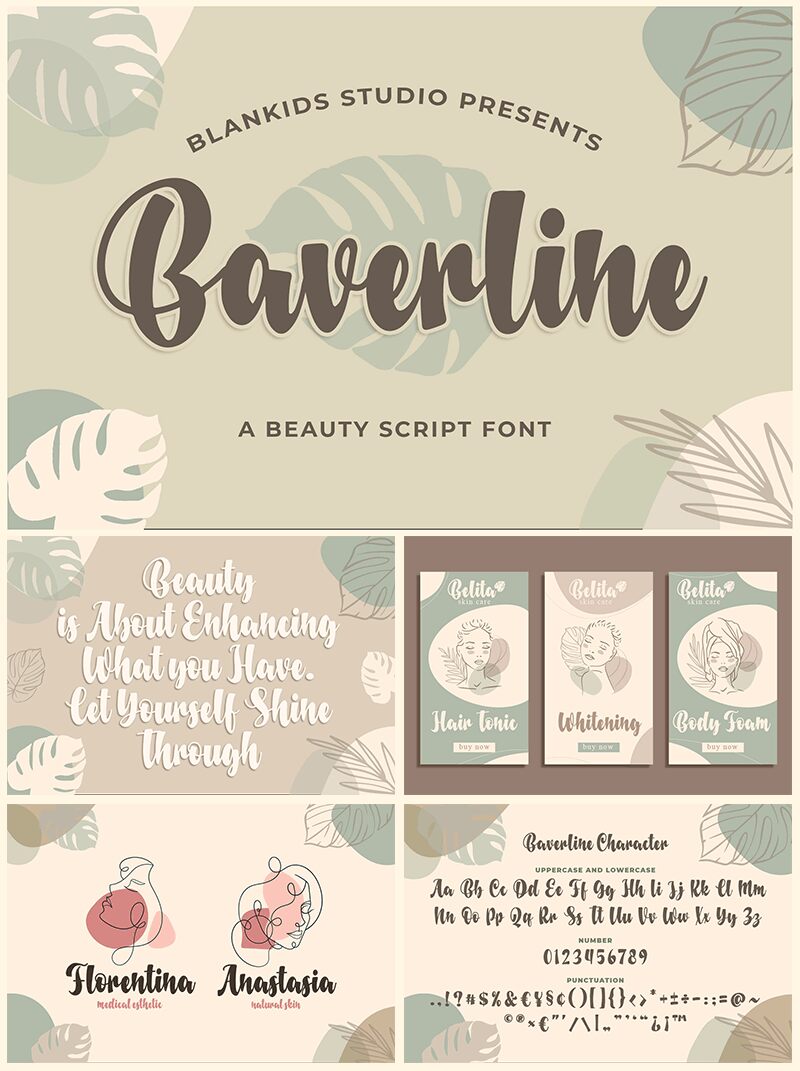
Baverline font was designed by Blankids. This free font presents an elegant script aesthetic with a modern touch and a cohesive flow. The expressive letters maintain a professional feel while still feeling friendly and approachable. These qualities combined make this a well-balanced typeface that is suitable for various contemporary designs.
Baverline has versatile applications, making it a great choice for posters, flyers, or magazine designs. If you own a local brand, this font is perfect for your business logo and storefront sign. Further applications could include inspiring quotes, packaging designs, typography art, or book covers.